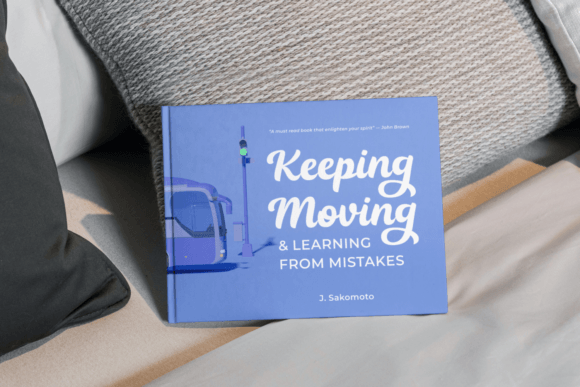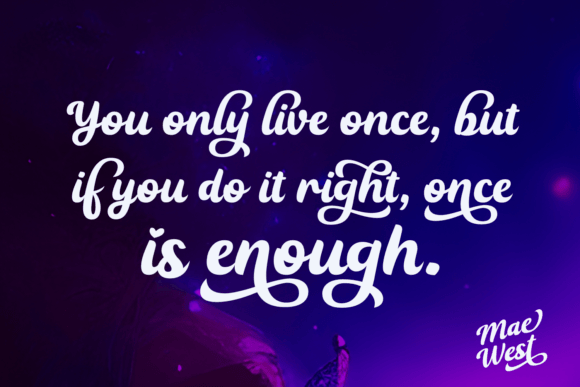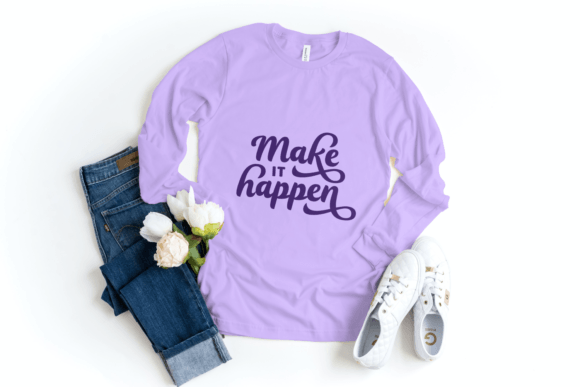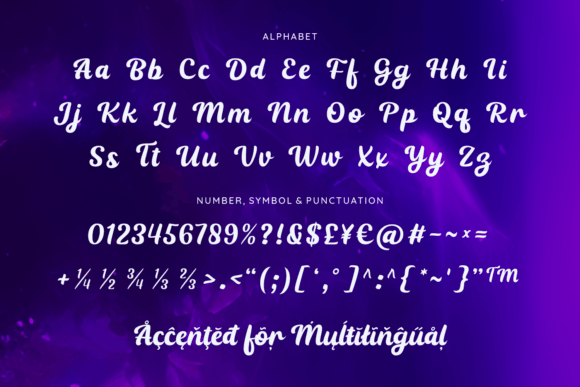
Introduction to Neila Font
Neila is a stunning and adorable script font.
These cute and chubby characters combined with a lovely flowing rhythm give this font a unique charm and make it the perfect asset to your library Try it in your next creative project.